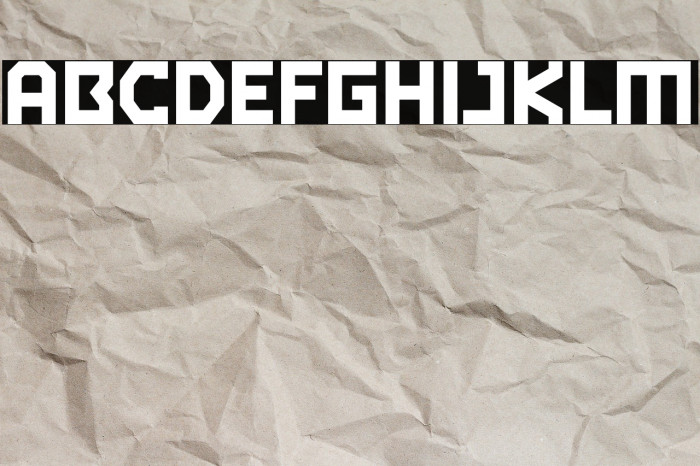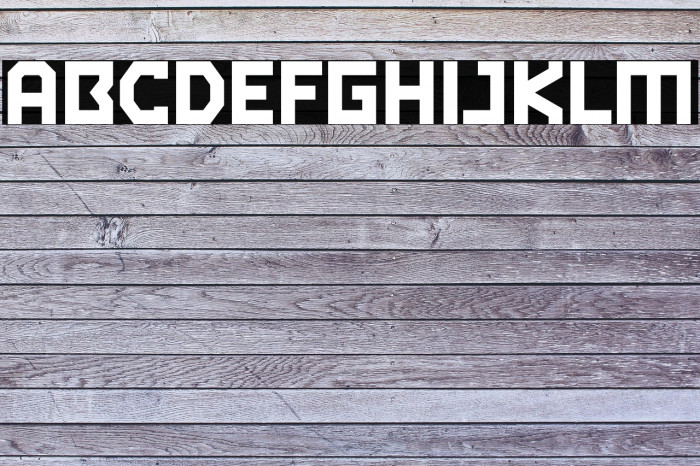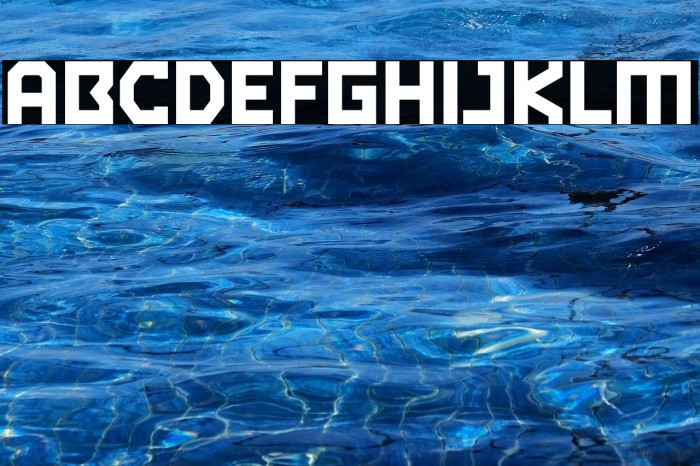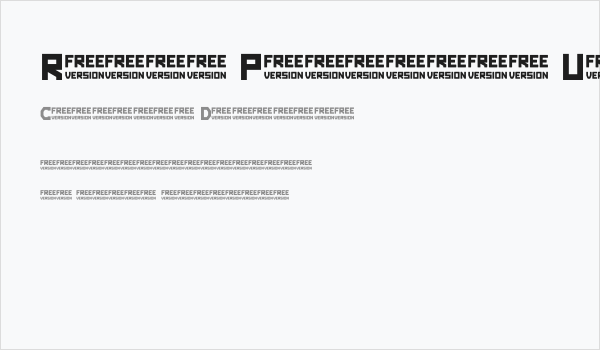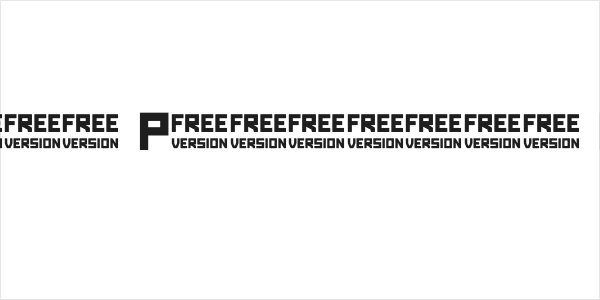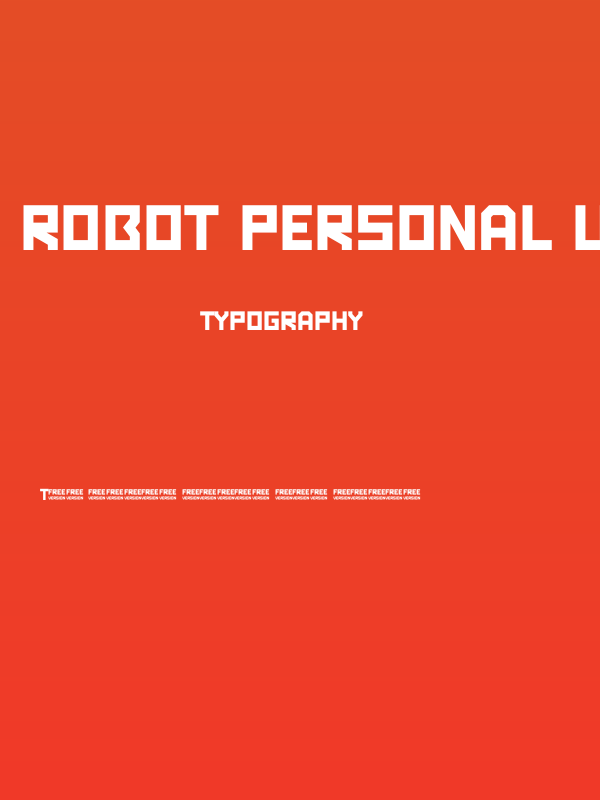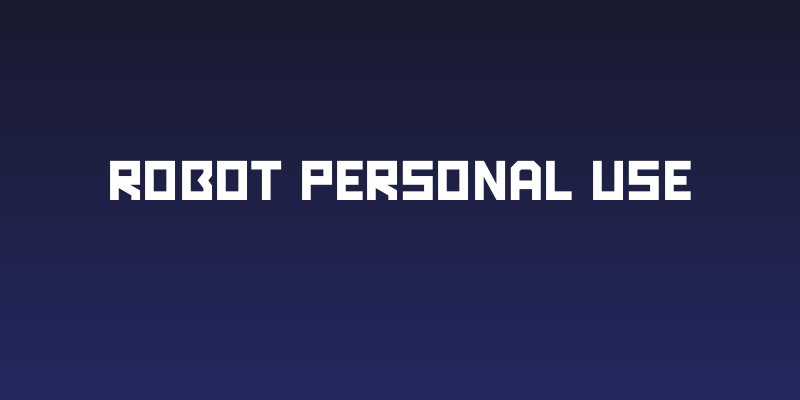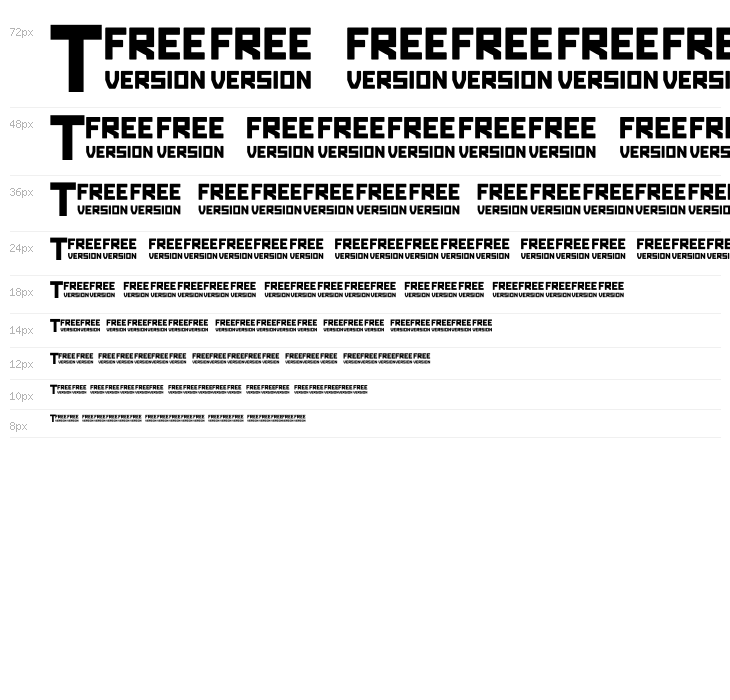
Robot Personal Use Font
Robot Personal Use Description
This font features a bold, geometric design with a futuristic and robotic aesthetic. The characters are constructed with sharp angles and straight lines, giving it a mechanical and structured appearance. The uppercase letters are particularly striking, with a uniform height and width that creates a cohesive look. The lowercase letters maintain the same angular style, ensuring consistency throughout the typeface. The numerals and special characters are designed to match the overall theme, making this font suitable for projects that require a modern and technical feel.
| Proposed Projects | Ideal for technology branding, sci-fi posters, video game titles, and digital interfaces. |